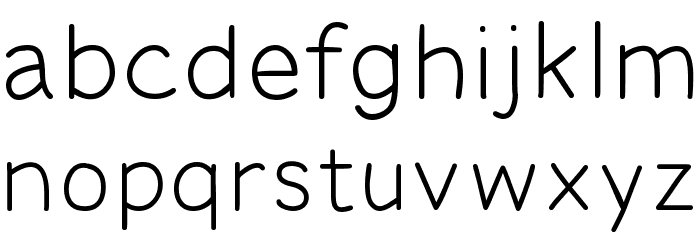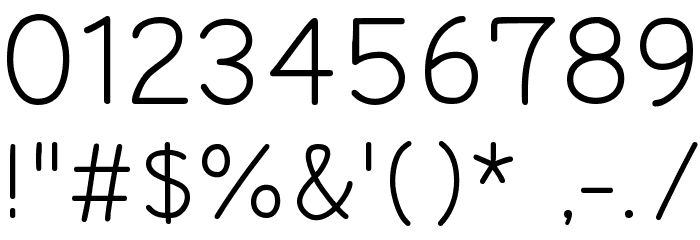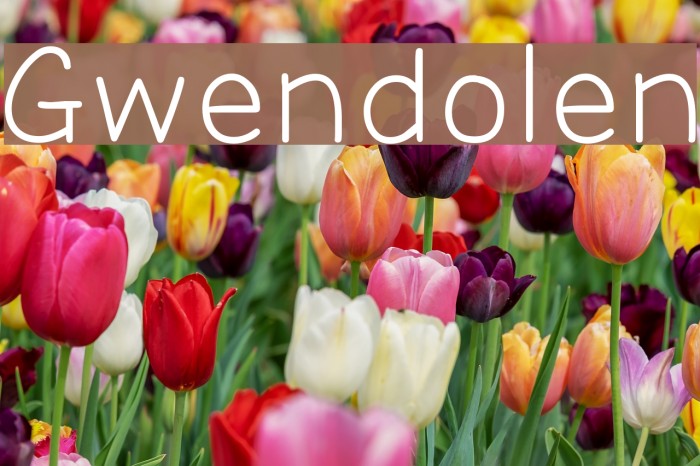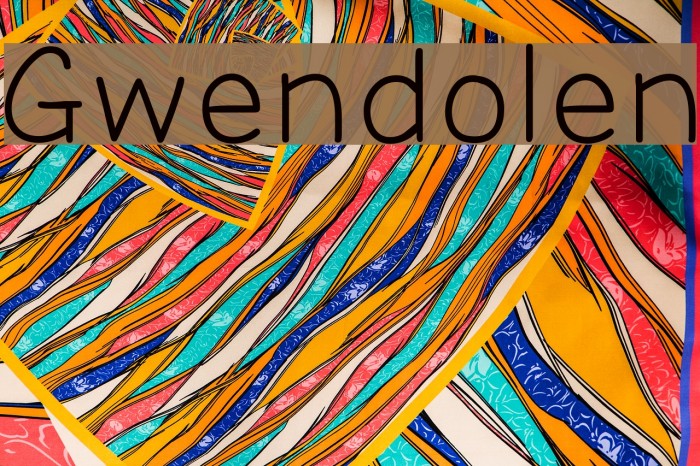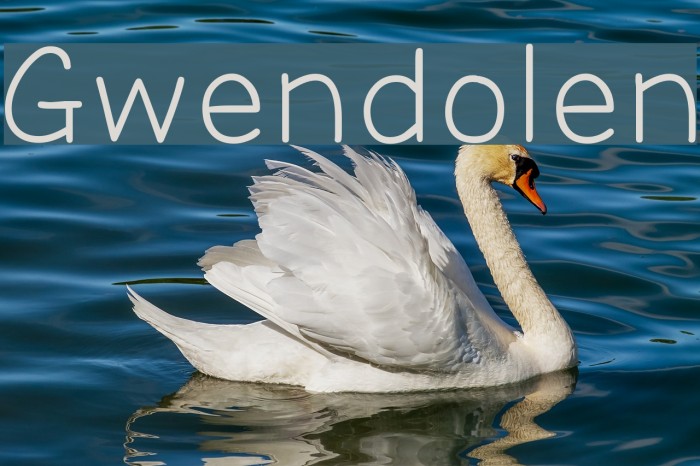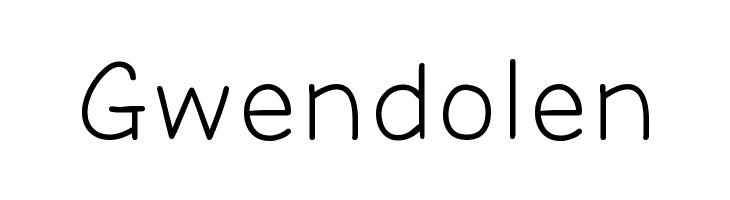
Gwendolen Font
This font features a clean and modern sans-serif style with a minimalist design. The characters are evenly spaced and have a consistent stroke width, giving it a uniform appearance. The uppercase letters are slightly taller than the lowercase, maintaining a balanced look. The numerals are clear and easy to read, making them suitable for both digital and print media. The special characters are well-defined, adding to the font's versatility. Overall, this font exudes a contemporary and professional feel, making it ideal for a wide range of applications.
A clean, modern sans-serif font with uniform stroke width and balanced design.
- Proposed Projects: Ideal for branding, web design, corporate materials, and editorial layouts.
- Category: Sans-Serif